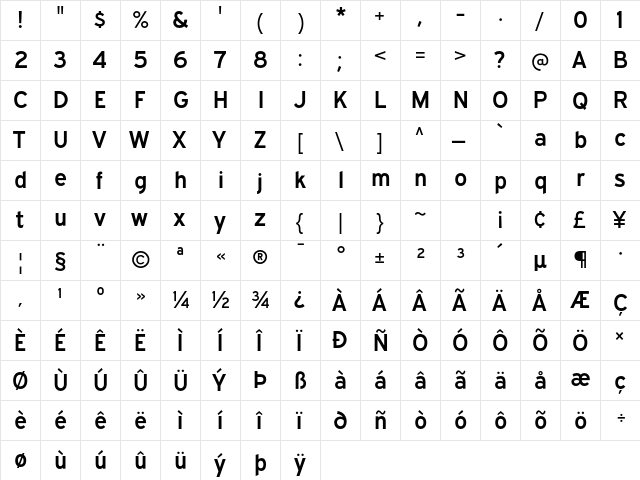
Expressway Sb Regular
Design Context for Expressway Sb Typeface
Expressway Sb offers clean, dependable letterforms without strong stylistic allegiance, making it a practical choice for designers who need flexibility.